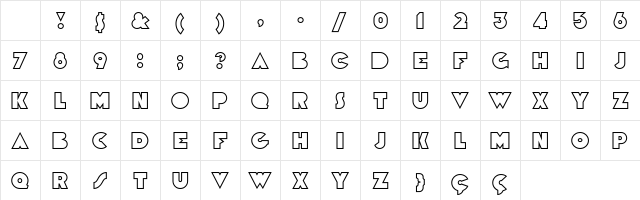
Ciclope Black is built around its visual character rather than neutral utility - its distinctive forms are designed to make an impression at display sizes.
Font Pairing: Pair with a clean neutral sans-serif for body copy to let Ciclope Black's character lead without overwhelming the composition.
Pro Tip: Use Ciclope Black exclusively at display sizes - it was designed to be seen, not read at length. Let a neutral companion handle body copy.